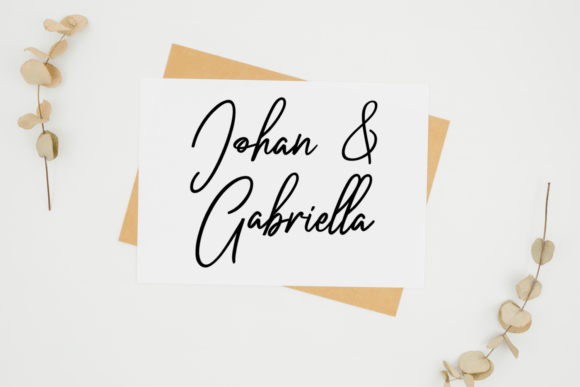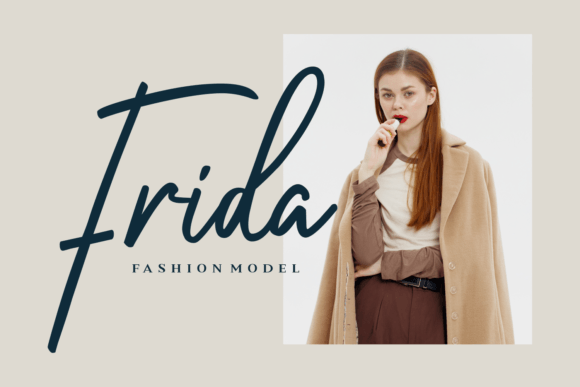
Besthetical Font
Besthetical is a modern script font that embodies elegance and sophistication with its thin calligraphy style. This font exudes a sense of refinement and charm, making it perfect for projects that require a touch of contemporary elegance. It can be used for everything from wedding invitations and branding materials to social media graphics and editorial layouts, adding a touch of elegance and refinement to any project. Whether used for wedding stationery, branding, social media graphics, or editorial design, “Besthetical” captivates viewers with its timeless beauty and modern charm.